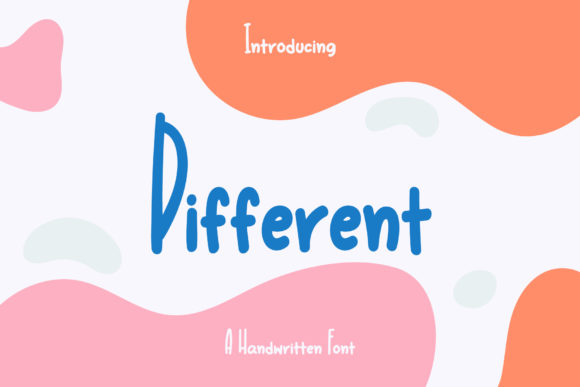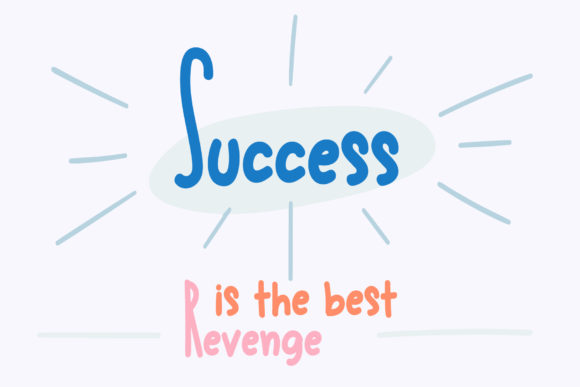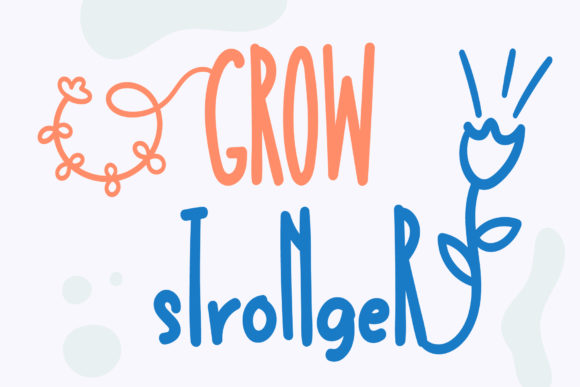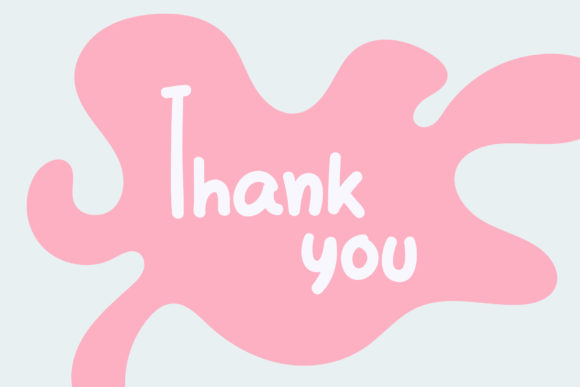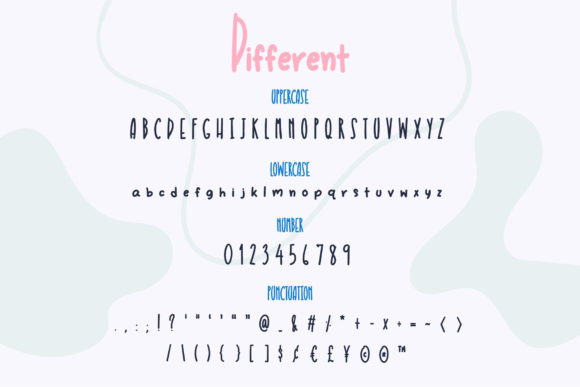
About Different Font
Different is a sweet and friendly handwritten font. Its natural and unique style makes it incredibly fitting to a large pool of designs. The only limit is your imagination!